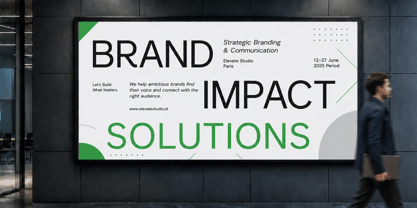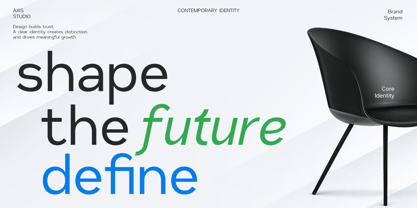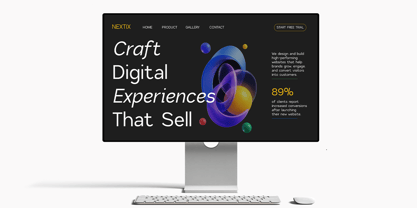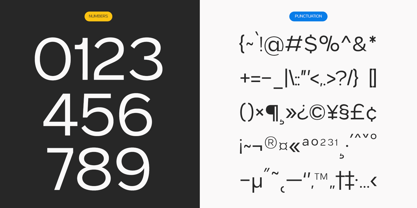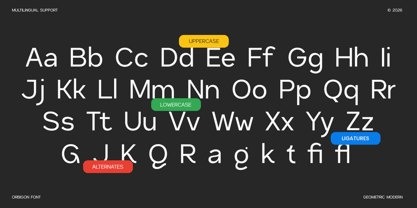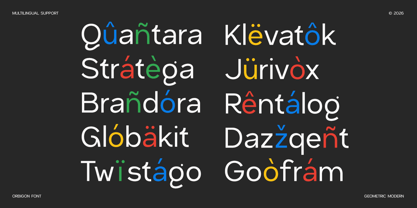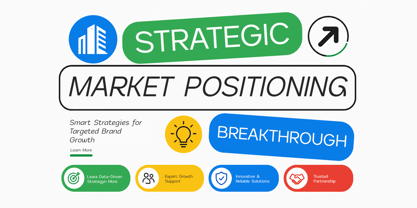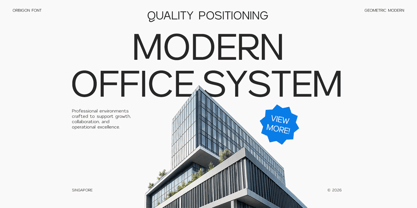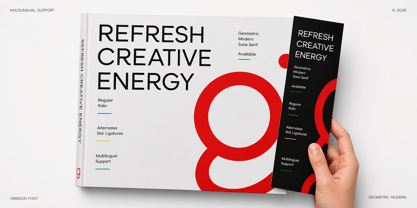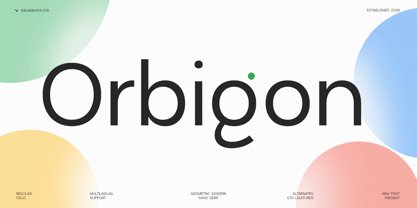
Orbigon
The Orbigon Font Family was designed by Yogiswhara Dio Prakoso Riadi and published by RagamKata. Orbigon contains 2 styles and family package options. More about this family
Orbigon is a geometric modern sans serif font designed to deliver clarity, balance, and contemporary sophistication. With clean proportions, smooth curves, and refined letterforms, it creates a strong visual identity that feels both professional and approachable. Its minimalist aesthetic makes it ideal for brands seeking a timeless yet innovative typographic voice.
Built with Regular and Italic styles, standard ligatures, and multilingual support, Orbigon offers flexibility for a wide range of creative applications. Whether you're designing logos, visual identities, corporate presentations, editorial layouts, UI interfaces, websites, packaging, or advertising campaigns, this typeface maintains exceptional readability while adding a polished modern character.
Perfect for branding agencies, startups, technology companies, architecture studios, creative portfolios, luxury packaging, magazines, posters, social media graphics, and business communications, Orbigon helps designers create clean, impactful, and memorable visual experiences across both digital and print media.
• Regular and True Italic
• Stylistic Aletrnates
• Stylistic Ligature
• Uppercase and Lowercase
• Number, Symbol, and Punctuation
• Multi Language Support